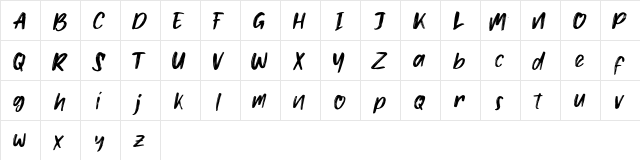
Jacqueline Regular
Design Context for Jacqueline Typeface
Jacqueline is a composed and adaptable typeface that performs quietly and consistently across a wide range of design contexts.